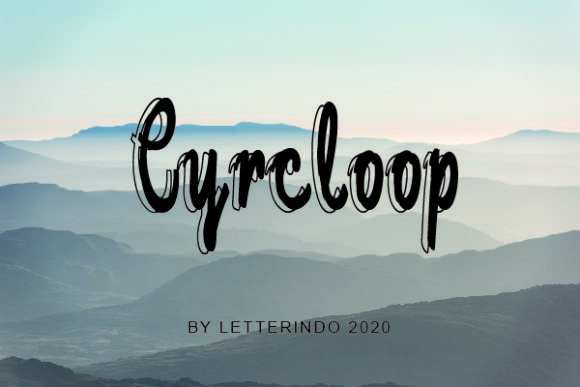
**Introducing Cyrcloop: The Script Font That Will Make Your Heartfelt Messages Sing**
Step into the enchanting world of Cyrcloop script, where every letter dances with emotion and every word captivates the heart. This extraordinary font is not just a collection of characters; it's a symphony of expressiveness that will transform your words into heartfelt melodies.
Whether you're pouring out your condolences on a sympathy card, crafting a heartfelt letter to a loved one, or designing an invitation that exudes warmth and sincerity, Cyrcloop will be your faithful companion. Its graceful curves and elegant flourishes add a touch of whimsy and charm to your creations, ensuring that your messages resonate deeply with your audience.
**A Masterpiece of Emotion and Versatility**
Cyrcloop is a masterpiece of font design, effortlessly combining the elegance of calligraphy with the soulful touch of handwritten script. Its casual charm makes it appear wonderfully down-to-earth, readable and, ultimately, incredibly versatile.
Whether you're a seasoned designer or just starting your creative journey, Cyrcloop will empower you to create stunning visuals that evoke emotion and leave a lasting impression. Its versatility knows no bounds, allowing you to effortlessly craft designs that are as unique and captivating as your words.
**A Font for Every Occasion**
With Cyrcloop, you'll never struggle to find the perfect font again. Its wide range of styles and weights ensures that you'll always have the right tool for the job. From delicate and flowing scripts to bolder and more assertive variations, Cyrcloop adapts seamlessly to any occasion.
Use Cyrcloop to create:
* Heartfelt sympathy cards that convey your deepest condolences with grace and sensitivity
* Enchanting invitations that evoke a sense of joy and anticipation
* Meaningful letters that express your love and affection in a way that transcends words
* Stunning social media posts that capture attention and engage your audience
* Eye-catching headlines and body copy that captivates readers and drives conversions
**Experience the Magic of Cyrcloop Today**
Join the countless creatives who have fallen in love with the expressive charm of Cyrcloop script. Its versatility, elegance, and emotional resonance make it the perfect choice for anyone looking to create heartfelt and unforgettable designs.